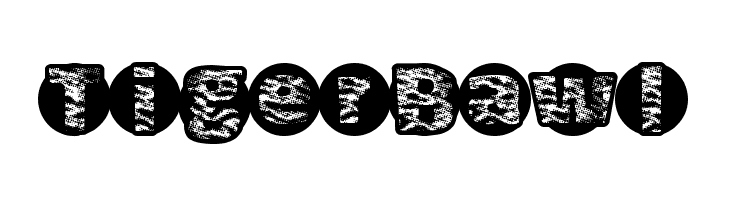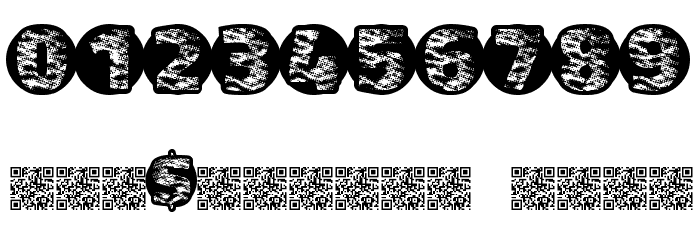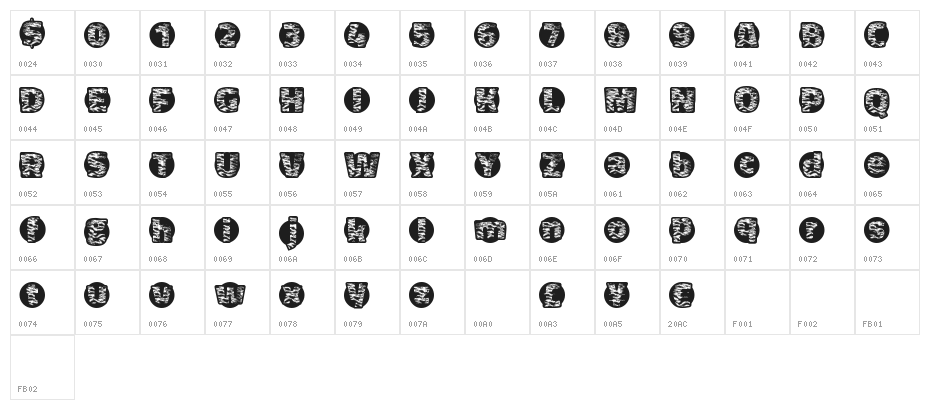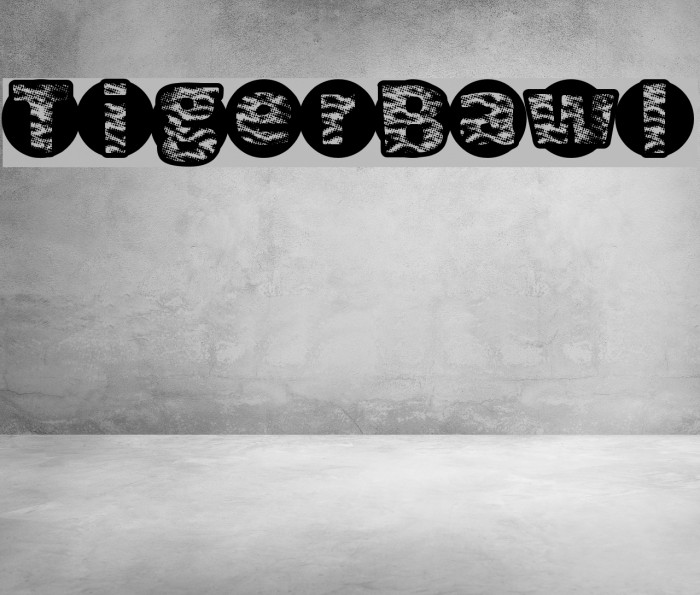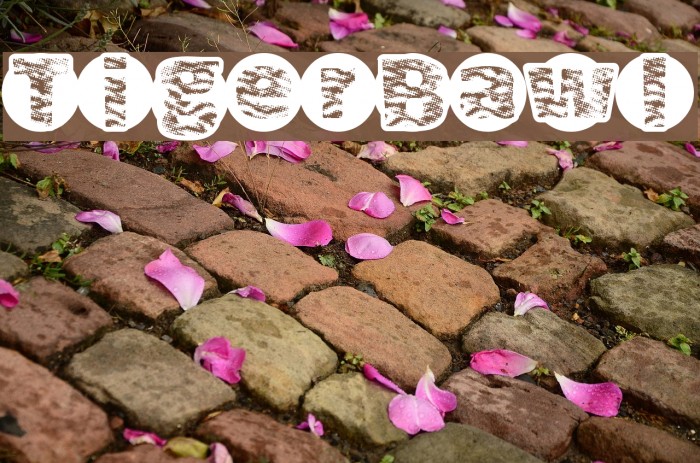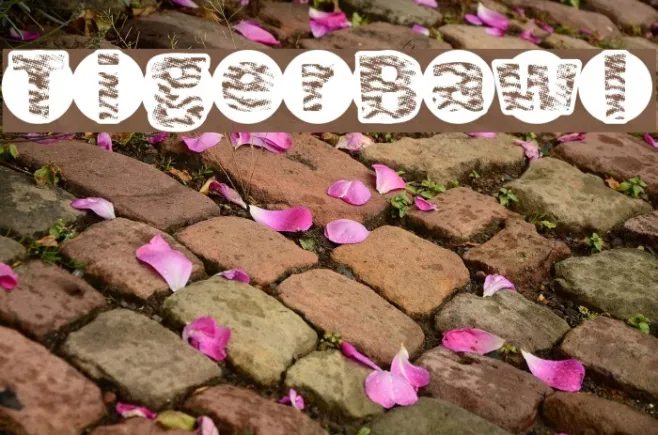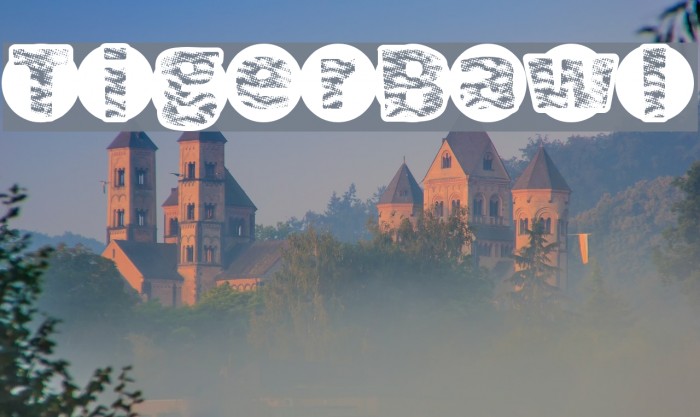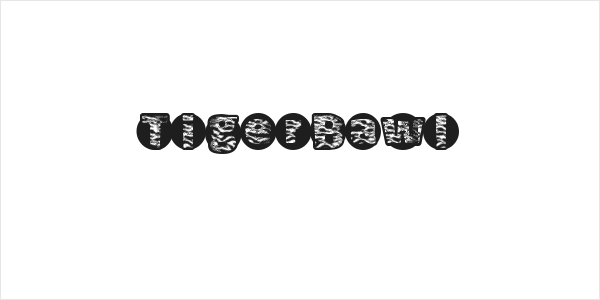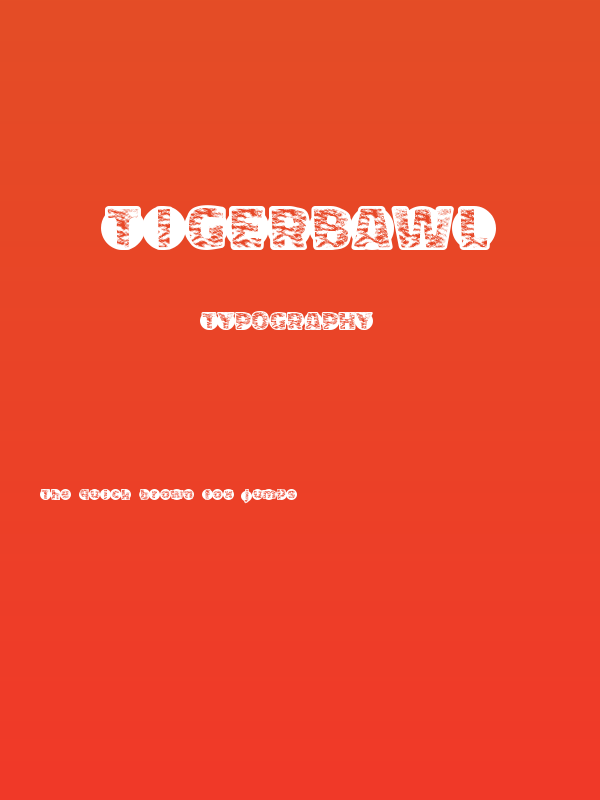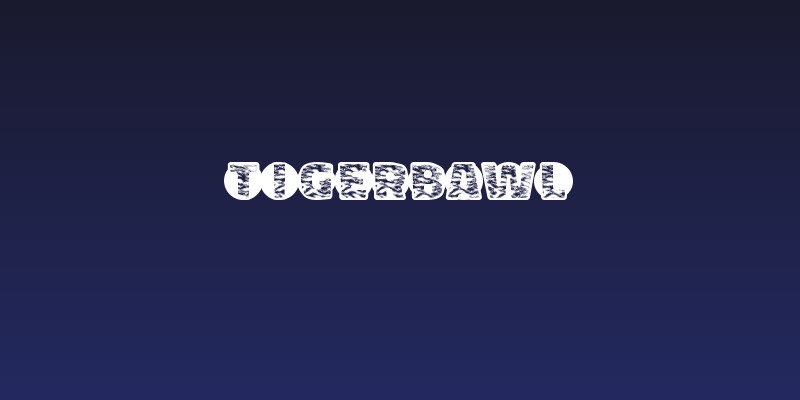
TigerBawl Font
TigerBawl Description
This font features a bold and playful design with a distinctive tiger stripe pattern filling each character. The letters are rounded and have a three-dimensional effect, giving them a sense of depth and texture. The uppercase and lowercase letters maintain a consistent style, with the uppercase being slightly larger and more pronounced. The numbers and special characters follow the same design principles, ensuring a cohesive look across all elements. This font's unique pattern and bold appearance make it stand out, ideal for projects that require a fun and eye-catching typeface.
TIGERBAWL UPPERCASE
TIGERBAWL LOWERCASE
TIGERBAWL OTHER CHARS